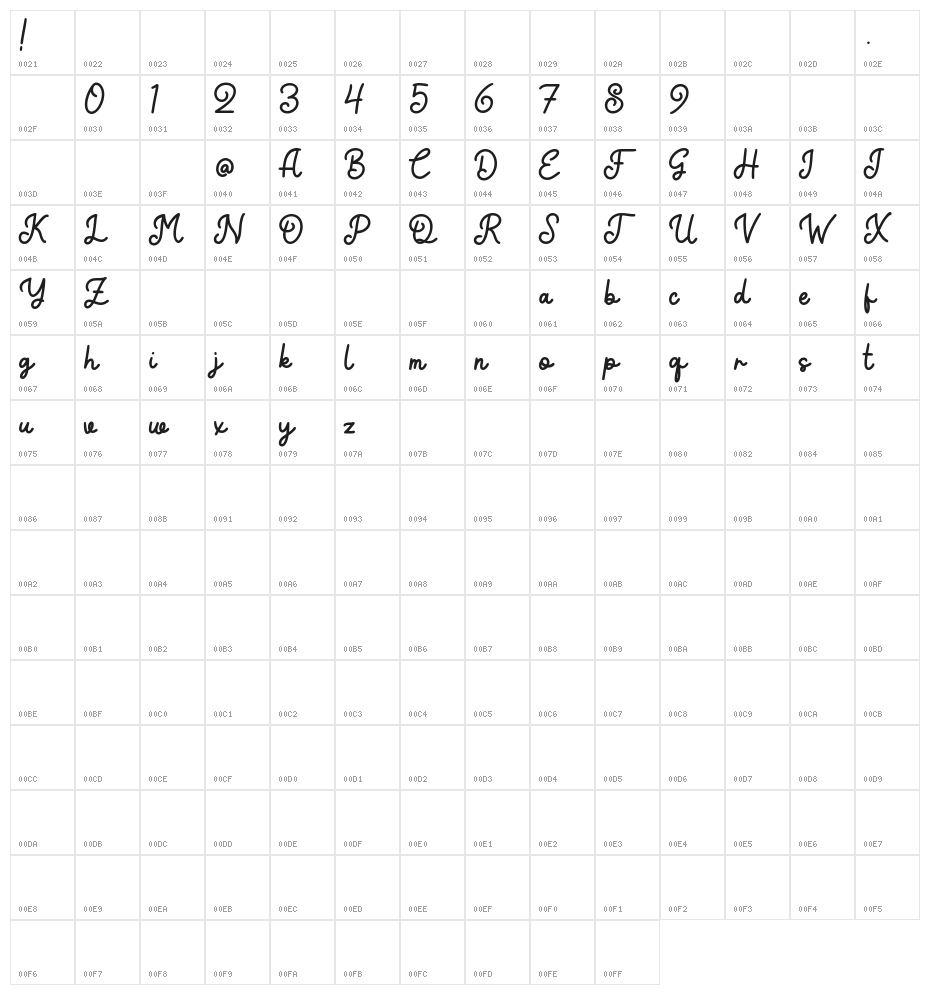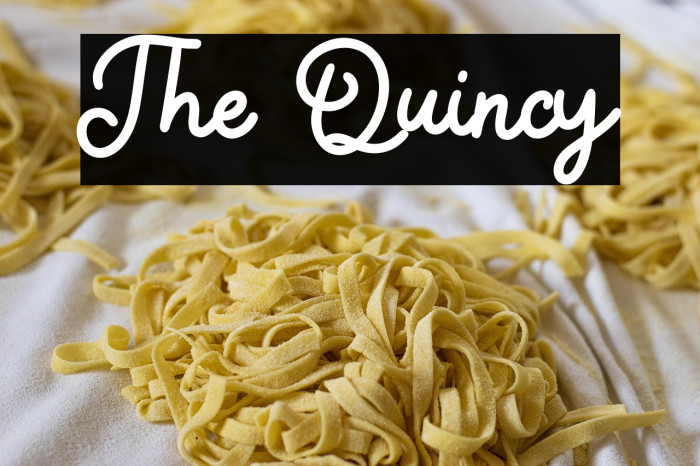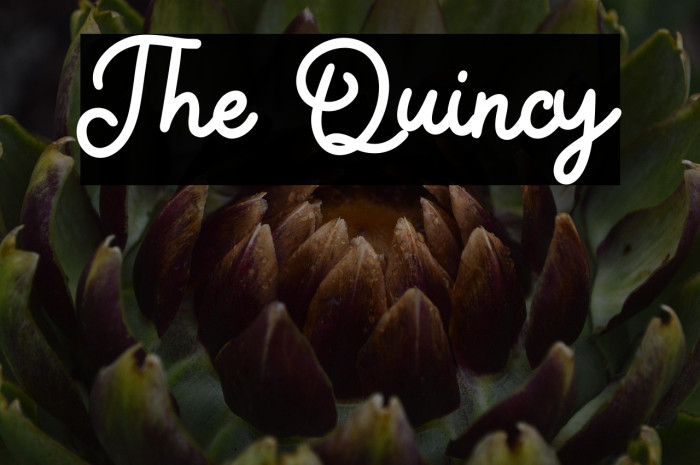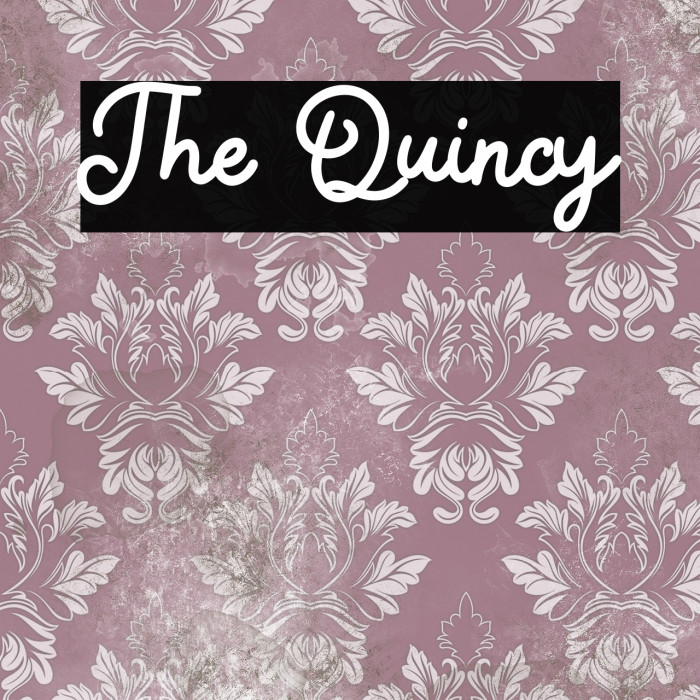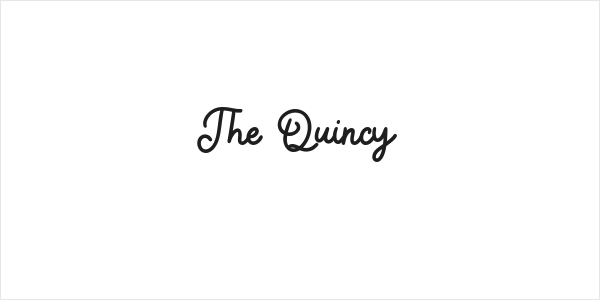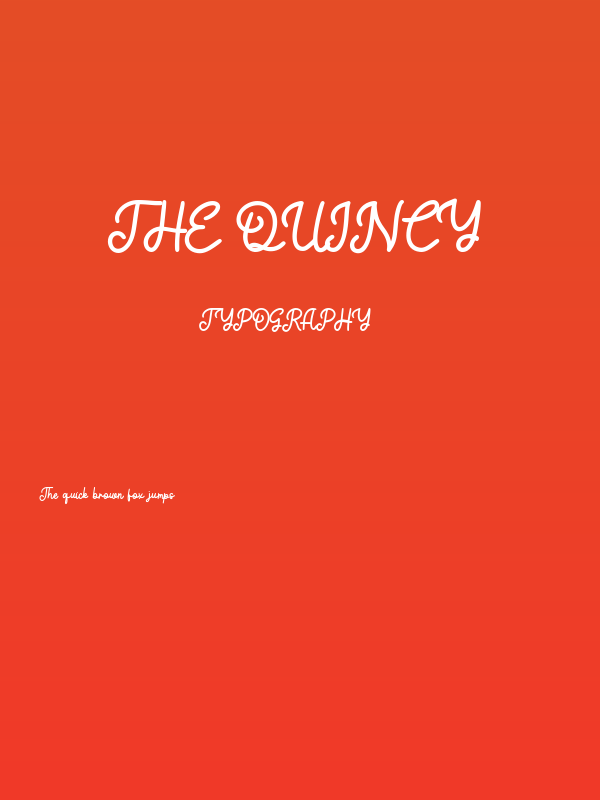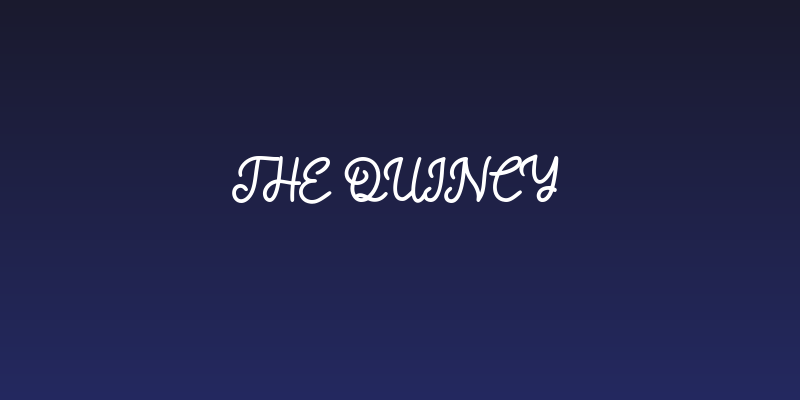
The Quincy Font
The Quincy Description
This font features a playful and flowing script style, characterized by its smooth, connected strokes and rounded forms. The uppercase letters exhibit a consistent height with elegant loops and curves, while the lowercase letters maintain a harmonious flow with slightly exaggerated ascenders and descenders. The numerals are bold and rounded, complementing the overall whimsical aesthetic. Special characters are integrated seamlessly, maintaining the font's cohesive look. This font is ideal for projects that require a touch of elegance and creativity, such as invitations, greeting cards, and branding materials.
Use CaseLogos, Headlines, Decorative text
Proposed ProjectsIdeal for invitations, greeting cards, branding materials, and creative projects.